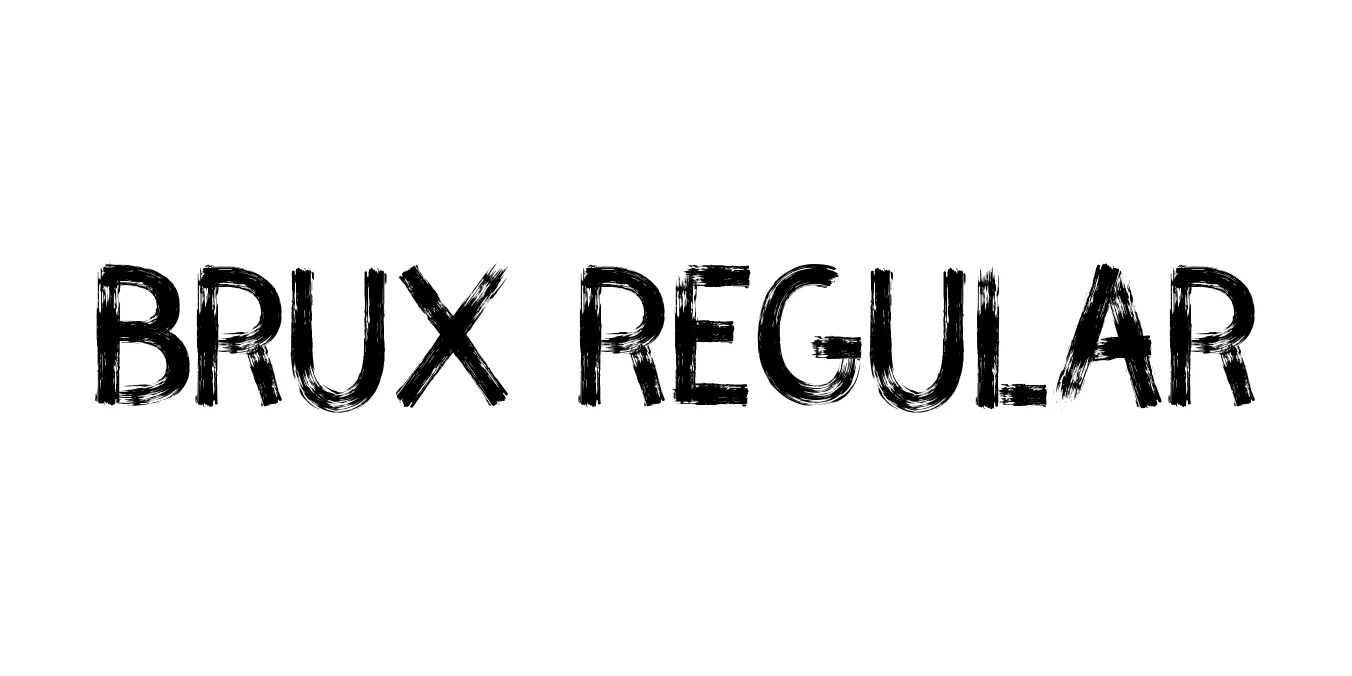
BRUX Regular
Designed by Marcelo Mezquita
BRUX Regular is a stylized, hand-drawn brush font designed by Marcelo Mezquita. It stands out due to its raw, organic texture and bold strokes, which give it a modern and urban aesthetic. The font captures the essence of street art and calligraphy, making it an excellent choice for projects that require a touch of personality and a distinct hand-crafted feel.
Released as a versatile display typeface, BRUX includes a full set of uppercase characters, numbers, and basic punctuation. Its energetic and gritty appearance makes it particularly effective for high-impact visual communication. Whether used for digital media or print, this font provides a high level of readability while maintaining its unique, expressive, and artistic character.
BRUX Regular Best Uses
Perfect for bold, attention-grabbing titles in magazines or posters.
Ideal for creating a unique and personal identity for creative and lifestyle brands.
Great for high-impact quotes and visual storytelling on platforms like Instagram.
Works exceptionally well for t-shirt designs and street-wear labels.